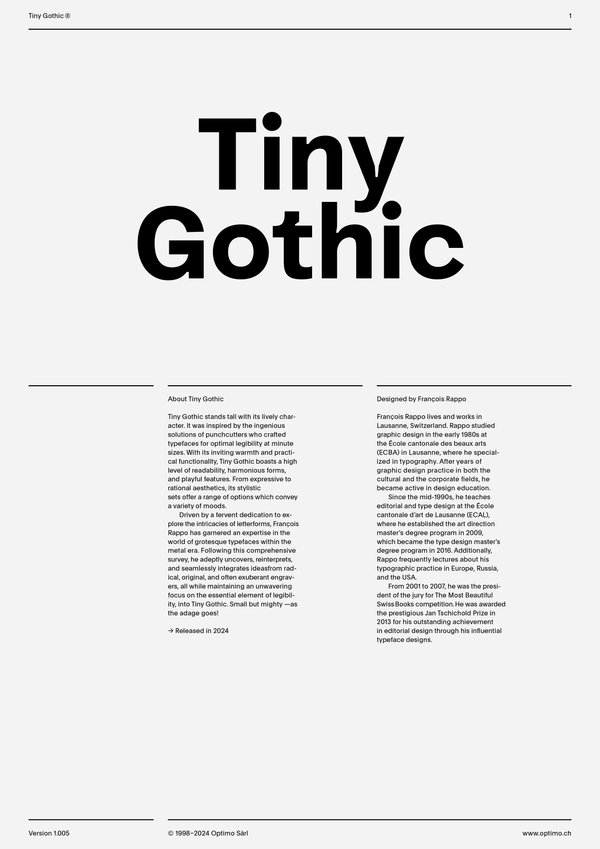
Tiny Gothic
Case Sensitive Forms
This function formats the text in uppercase and adjusts spacing between all capital letters. It also applies the ‘Case Sensitive Forms’ feature which replaces certain characters with alternates that are better suited for all capital text, especially related to punctuation.
Contextual Alternates
This feature adapts the position of a glyph after its surrounding context. For instance, a dash placed between two uppercase letters or numbers will be replaced by an uppercase version of the dash, slightly higher. This feature is usually active by default in Adobe applications.
Alternate I J Q R a f g j r t y 2 5 7 &
This feature replaces glyph(s) with stylistic alternate(s).
Single-storey a
This feature replaces glyph(s) with stylistic alternate(s).
No ink traps
This feature replaces glyph(s) with stylistic alternate(s).
No ink traps alternates
This feature replaces glyph(s) with stylistic alternate(s).
Alternate R
This feature replaces glyph(s) with stylistic alternate(s).
Alternate diacritics
This feature replaces glyph(s) with stylistic alternate(s).
Circled figures 2 5 7 alternates
This feature replaces glyph(s) with stylistic alternate(s).
Black circled figures 2 5 7 alternates
This feature replaces glyph(s) with stylistic alternate(s).
Tabular Lining Figures
Based on the proportions of the capitals, lining figures have an invariable height. With the combination of the tabular spacing format, the width of each numeral is uniformized. This feature is useful when numerals need to all lined up. It facilitates the reading of numbers set within columns or tables. As some applications don’t have access to this feature, proportional figures are set as the default choice.
Proportional Oldstyle Figures
Based on the design of the lowercase, oldstyle figures have varying ascenders and descenders. Like most of the letters, each number has an appropriate width based on its shape. The combination of oldstyle figures with proportional setting generate numerals perfectly adapted for text.
Tabular Oldstyle Figures
Based on the design of the lowercase, oldstyle figures have varying ascenders and descenders. With the combination of the tabular spacing format, the width of each numeral is uniformized. This feature is useful when numerals need to all lined up. It facilitates the reading of numbers set within columns or tables.
Fractions
With this feature, any numbers separated by a slash will automatically turn into a fraction. To fit in fraction configuration, numerals have been designed smaller and their weights have been adjusted to suit the typeface.
Lowercase math symbols
This feature activates alternate lowercase positioning of mathematical symbols.
This feature replaces any letter following a numeral with its matching superior letters. French language uses the ordinal indicators such as ‘er’ for 1er premier, while Spanish, Portuguese and Italian require the feminine and masculine ordinals ‘a,’ ‘o’ for 1º, 1ª. Ordinals are designed to match the weight of the typeface.
Driven by a fervent dedication to explore the intricacies of letterforms, François Rappo has garnered an expertise in the world of grotesque typefaces within the metal era. Following this comprehensive survey, he adeptly uncovers, reinterprets, and seamlessly integrates ideas from radical, original, and often exuberant engravers, all while maintaining an unwavering focus on the essential element of legibility, into Tiny Gothic. Small but mighty—as the adage goes!